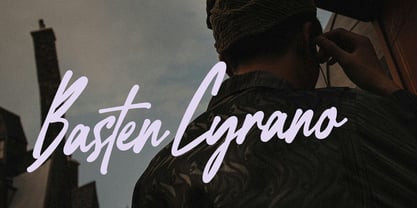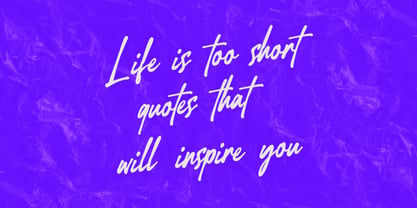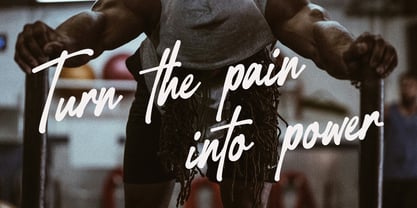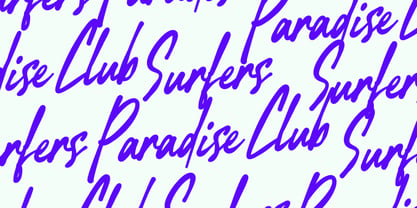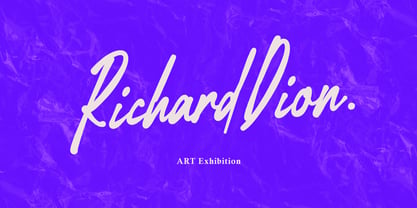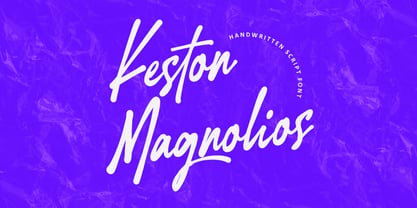
MC Kestone Magnolios
by Maulana Creative
The MC Kestone Magnolios Font Family was designed by Gilang Maulana and published by Maulana Creative. MC Kestone Magnolios contains 1 styles. More about this family
Capture attention instantly with Kestone Magnolios, a dynamic handwritten script font that infuses a burst of raw energy and authenticity into any design. Inspired by genuine, fast-paced handwriting, Kestone Magnolios features strong strokes, natural connections, and a confident style. It is designed to be effortlessly cool, highly readable, and undeniably impactful. The bold, sweeping script is perfect for creating headlines, logos, and quotes that demand attention. It maintains the spontaneity and imperfect beauty of true handwriting, giving your projects a human touch. While showcasing a modern, sporty, and energetic vibe, its elegance also makes it suitable for high-end branding, invitations, and captivating social media content. Kestone Magnolios includes a complete set of Uppercase and Lowercase letters, Numerals, Punctuation, and essential Ligatures & Alt Styles, providing maximum creative flexibility for various applications.
Designers: Gilang Maulana
Foundry: Maulana Creative